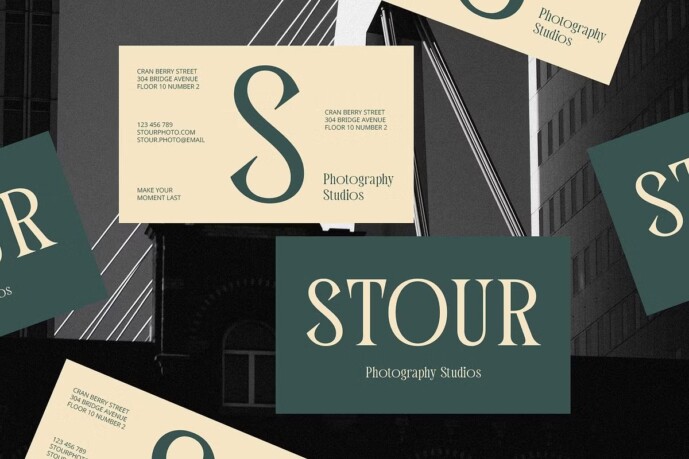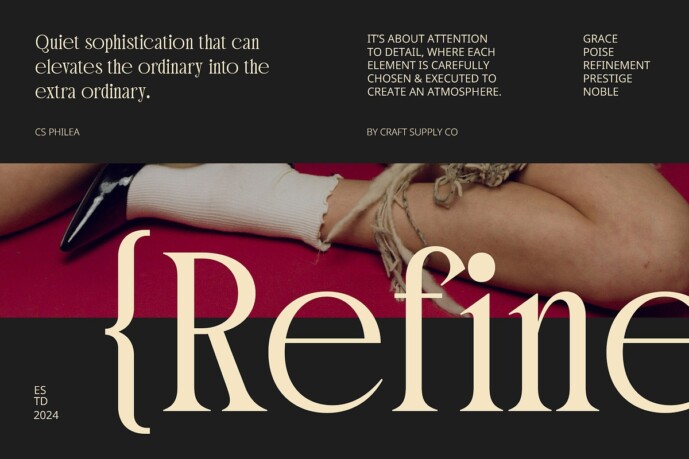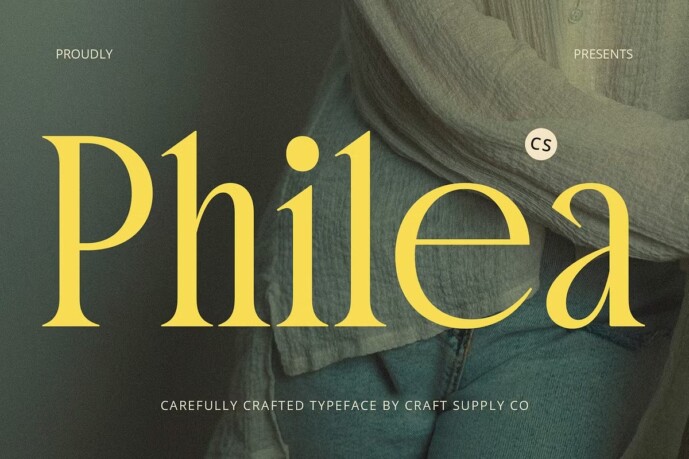
Philea Font
Designer: Craft Supply Co.
Philea Font is a modern serif font that combines a minimalist design with a condensed structure, resulting in a sleek and elegant appearance. Its narrow characters allow for spatial efficiency, making it ideal for projects that require a sophisticated yet compact design. The sharp lines and refined details of CS Philea create a high-end look that maintains a perfect balance between luxury and readability.
Luxury and Readability in Every Letter Despite its condensed form, CS Philea retains a high level of legibility, making it an excellent choice for designs that require both style and clarity. The minimalist serif design ensures that each letter is crisp and clean, adding a polished, professional feel to any project. Its elegant, narrow letterforms make it suitable for use in designs where space is at a premium, while its luxurious appearance ensures it commands attention.
Perfect for Luxury Branding and Editorial Designs CS Philea is the perfect font for luxury branding, editorial layouts, and projects that need to convey sophistication and professionalism. Whether used for fashion branding, high-end advertising, or premium packaging, this condensed font adds a refined touch to any design. Its sleek, narrow characters are particularly effective for headlines, logos, and other designs that require both spatial efficiency and a contemporary edge.